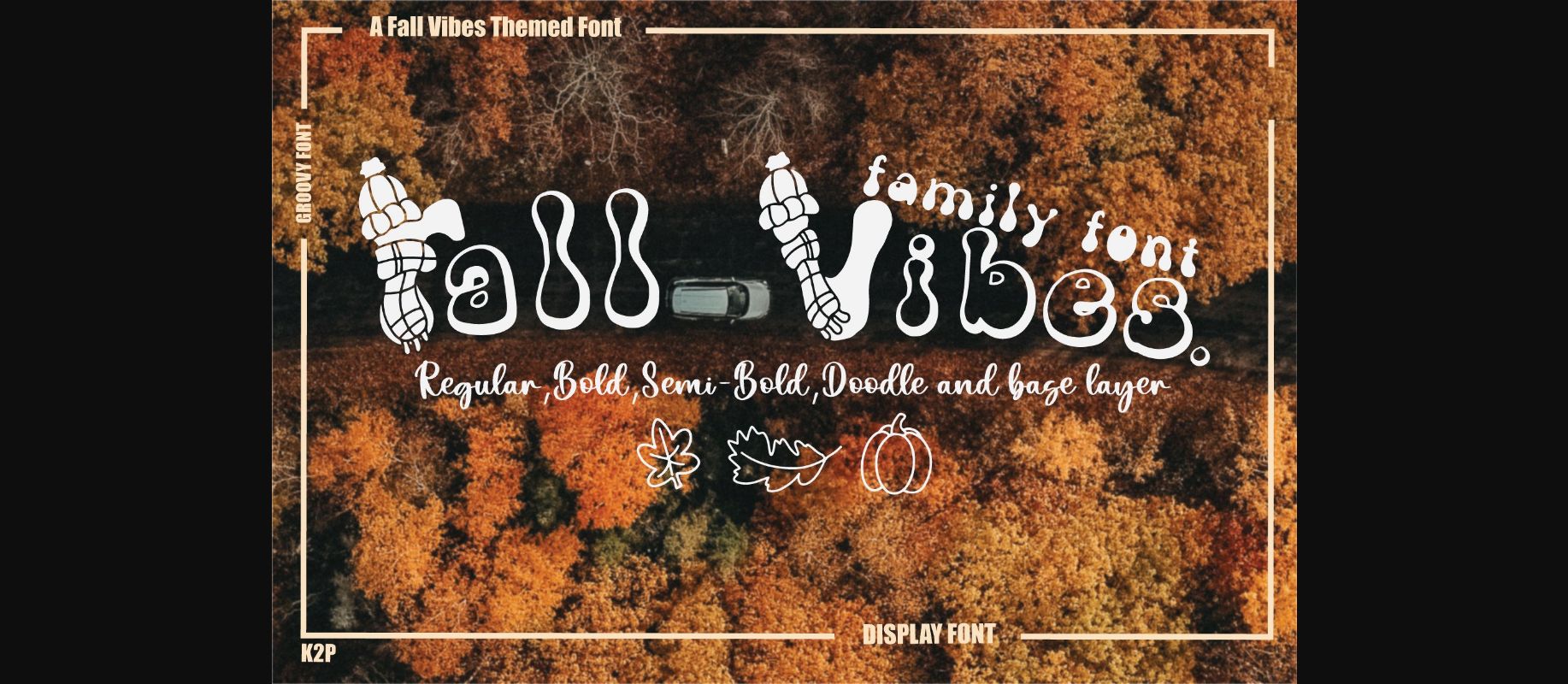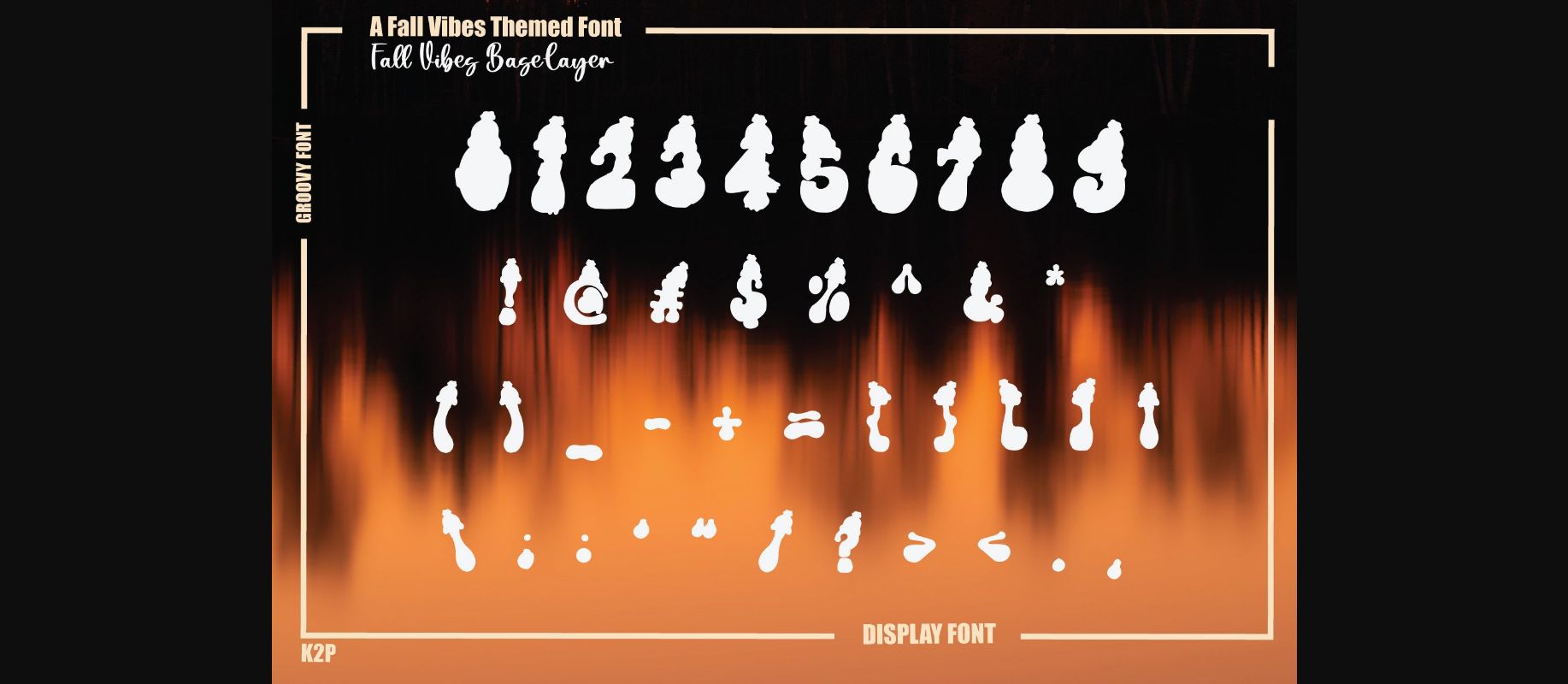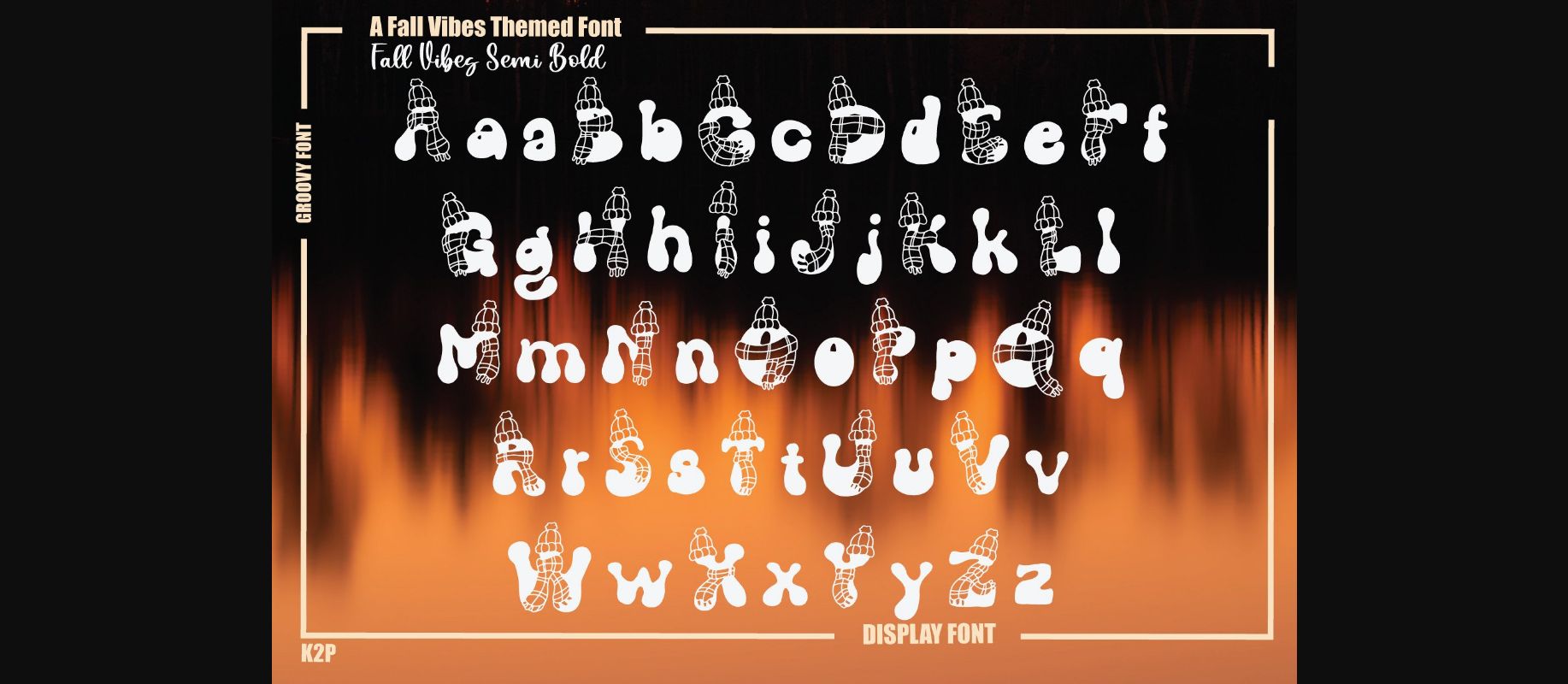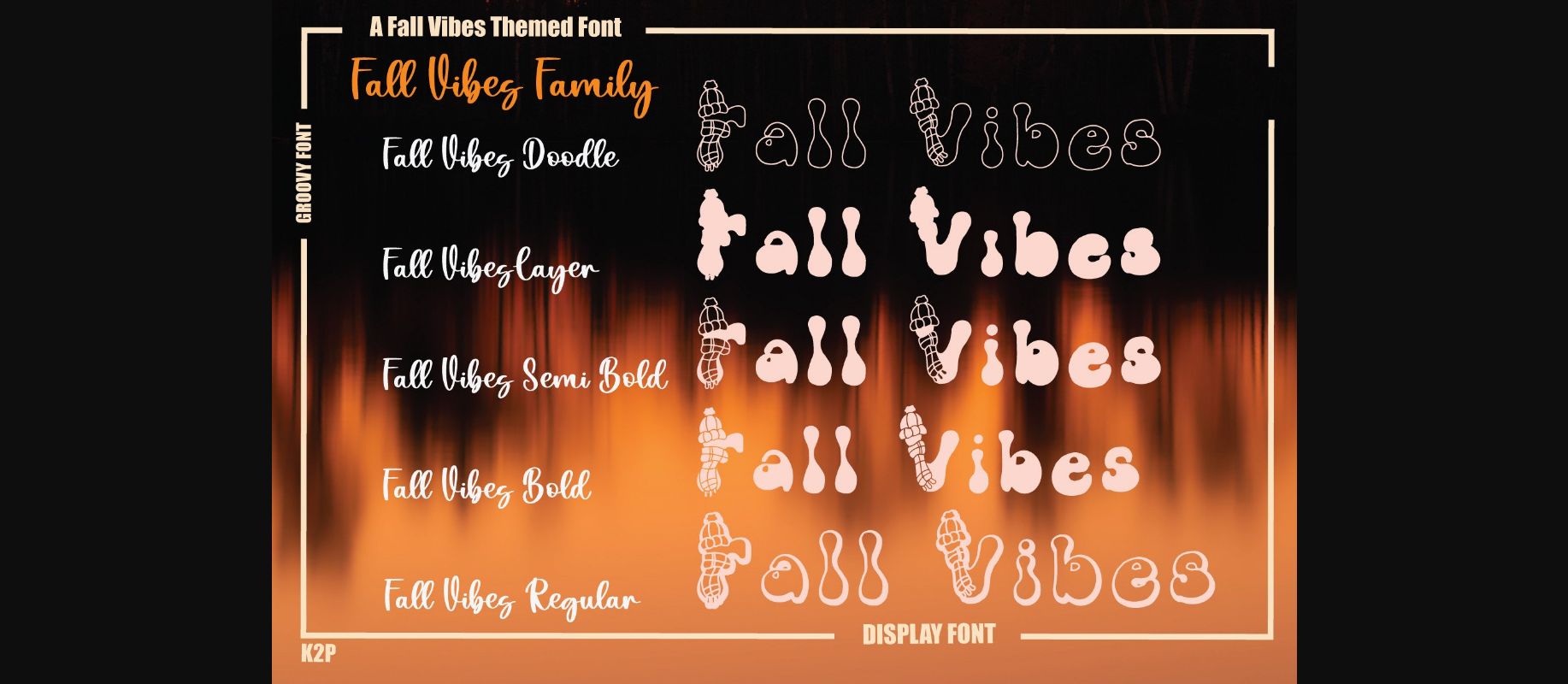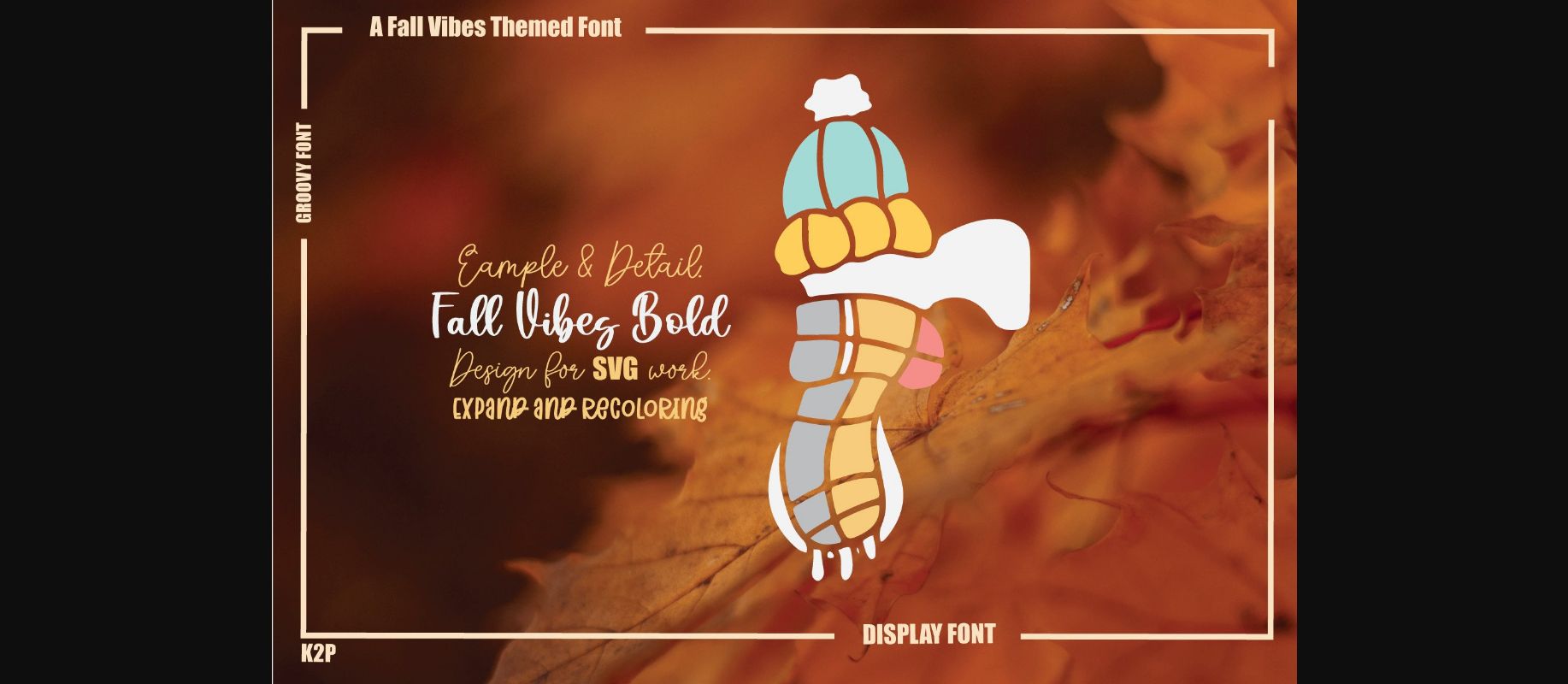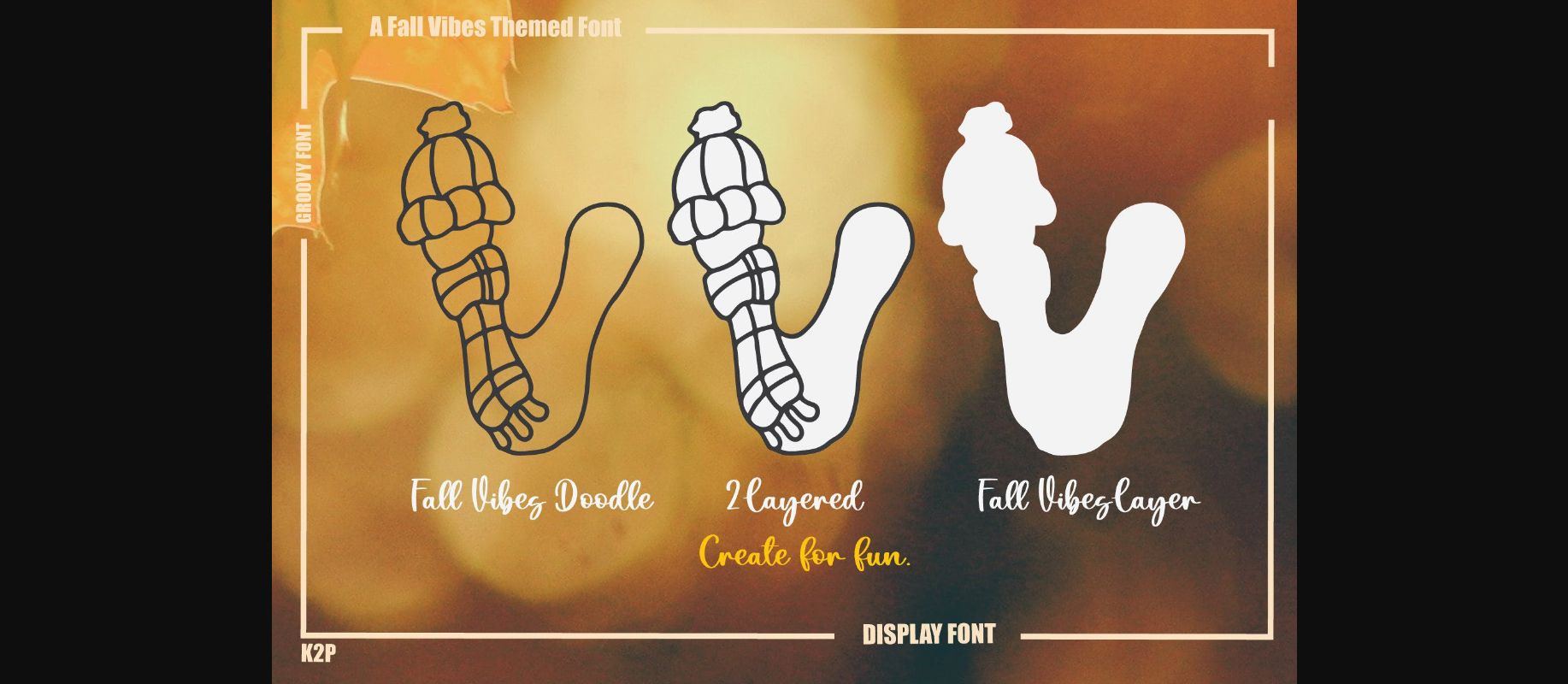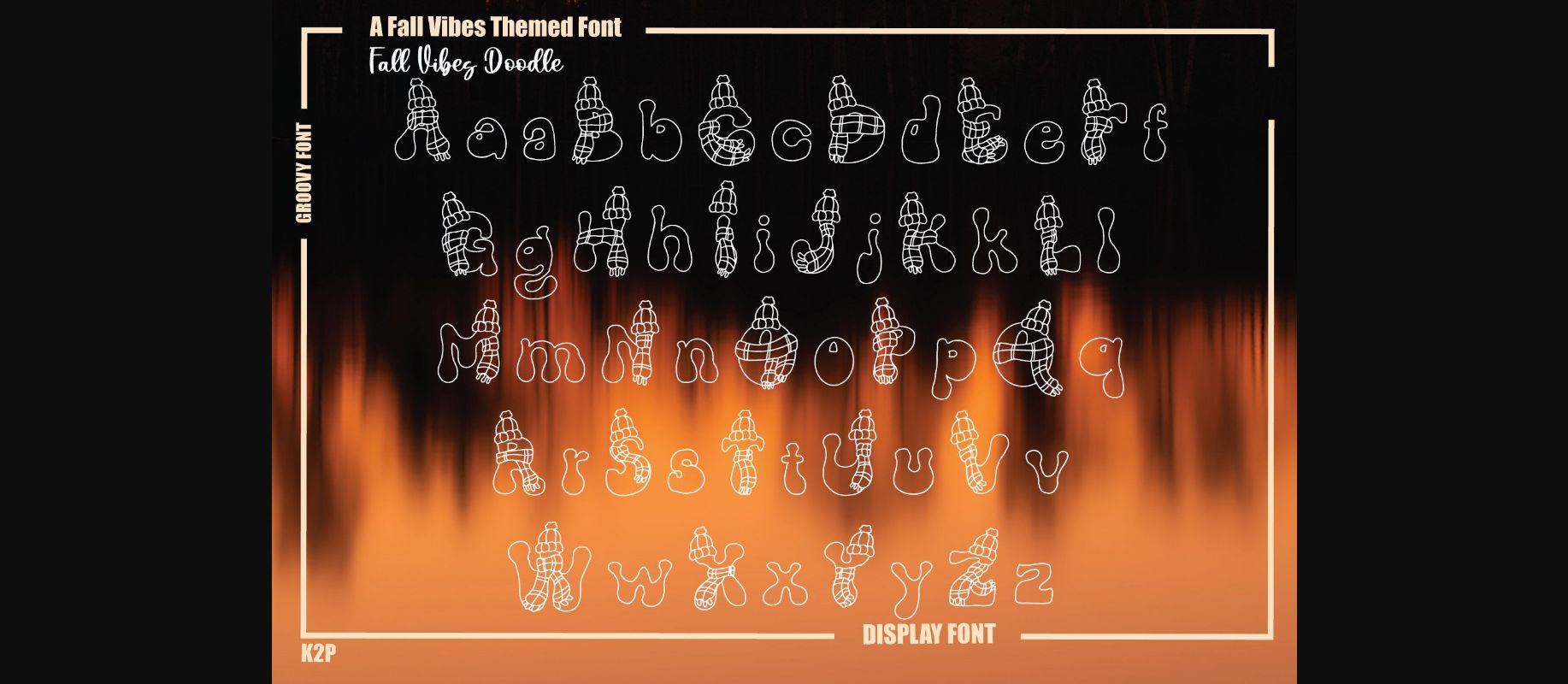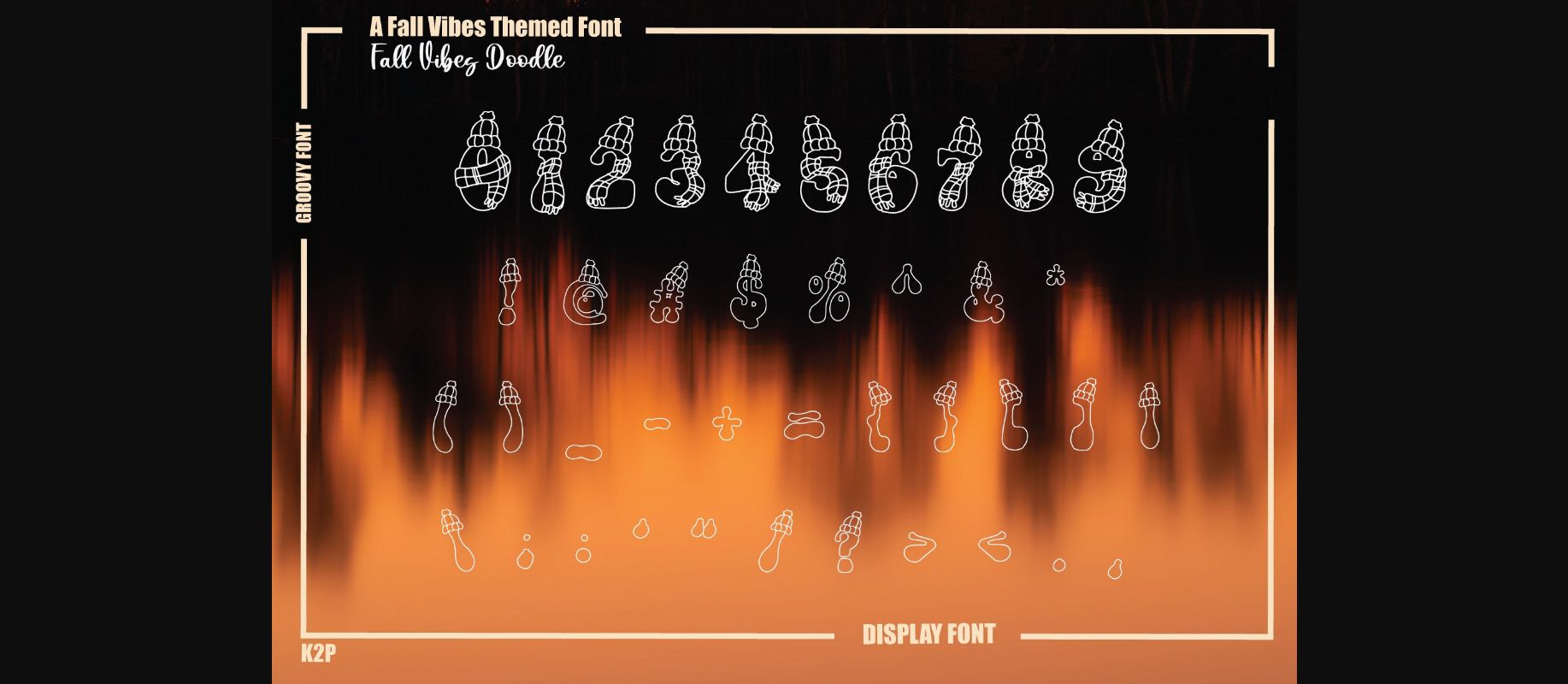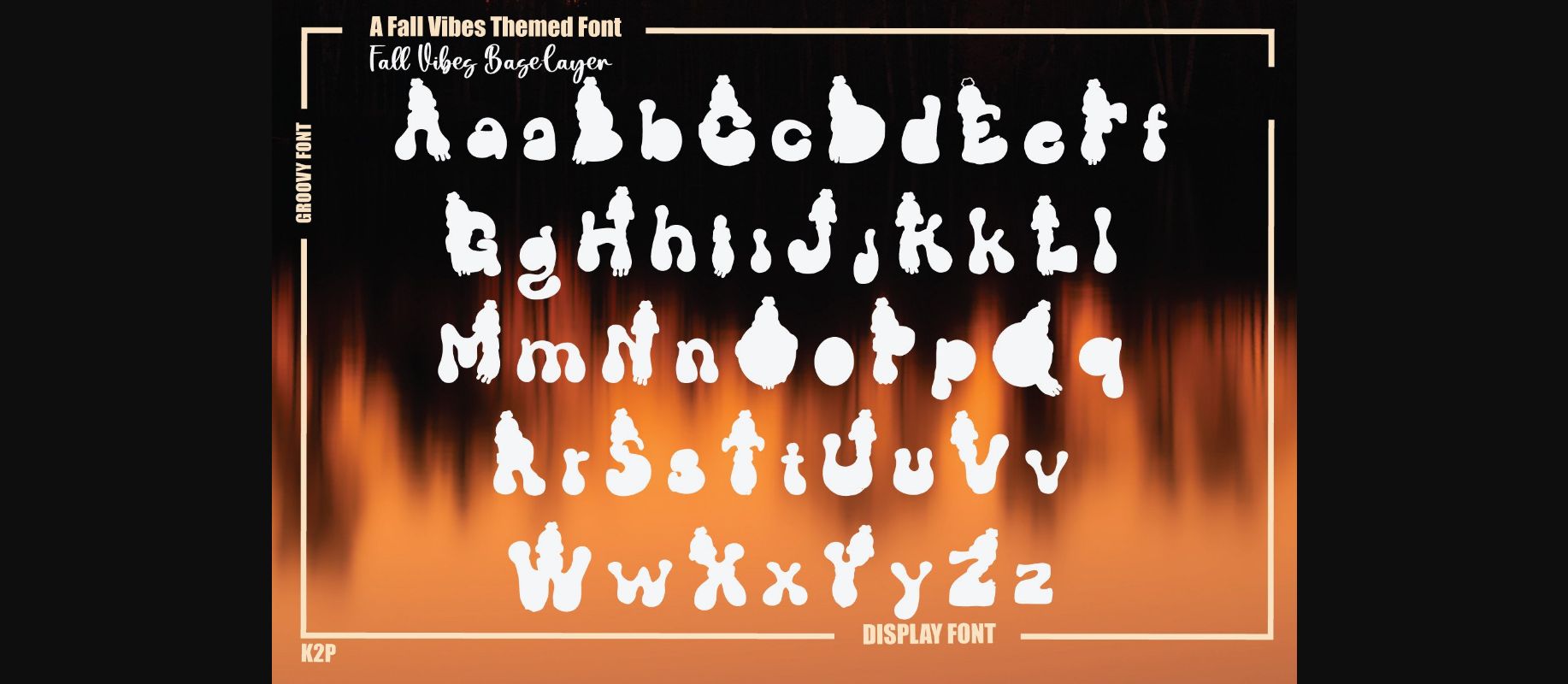
HomeDecorative FontsFall Vibes Font Decorative Fonts Fall Vibes Font FacebookXPinterestWhatsApp 1 of 11 ... Fall Vibes Font Poster 2... Fall Vibes Font Poster 3... Fall Vibes Font Poster 4... Fall Vibes Font Poster 5... Fall Vibes Font Poster 6... Fall Vibes Font Poster 7... Fall Vibes Font Poster 8... Fall Vibes Font Poster 9... Fall Vibes Font Poster 10... Fall Vibes Font Poster 11... About Fall Vibes Font Fall Vibes is a cute and incredibly unique decorative font. It can be used for various design ideas, particularly those related to the Fall season. DOWNLOAD NOW People also explored Sanes Font Anoting Font Leniyha Font Bellaria Script Font Boreland Font Adelaide Font Beverly Hills Font Embossed Heart Font Amazing Reco Font 384 0 TagsFall Vibes Font Previous articleCool FontNext articleLittle Kitty Font LEAVE A REPLY Cancel reply Comment: Please enter your comment! Name:* Please enter your name here Email:* You have entered an incorrect email address! Please enter your email address here Website: Save my name, email, and website in this browser for the next time I comment. Personal Use Free Amrina Personal Use Free Read more about this font Planning Personal Use Free Read more about this font Krabuler Personal Use Free Read more about this font Broodfath Personal Use Free Read more about this font BLOG Using Fonts in Digital Marketing: Tips to Strengthen Your Brand Identity In the realm of digital marketing, every visual element plays a crucial role in shaping a brand's identity, and fonts are no exception. The... Where to Buy American Fonts Online in 2024 Elegant Wedding Invitation Fonts – Handwritten & Script Fonts How to Install and Use Fonts on Windows, macOS, and Web Projects